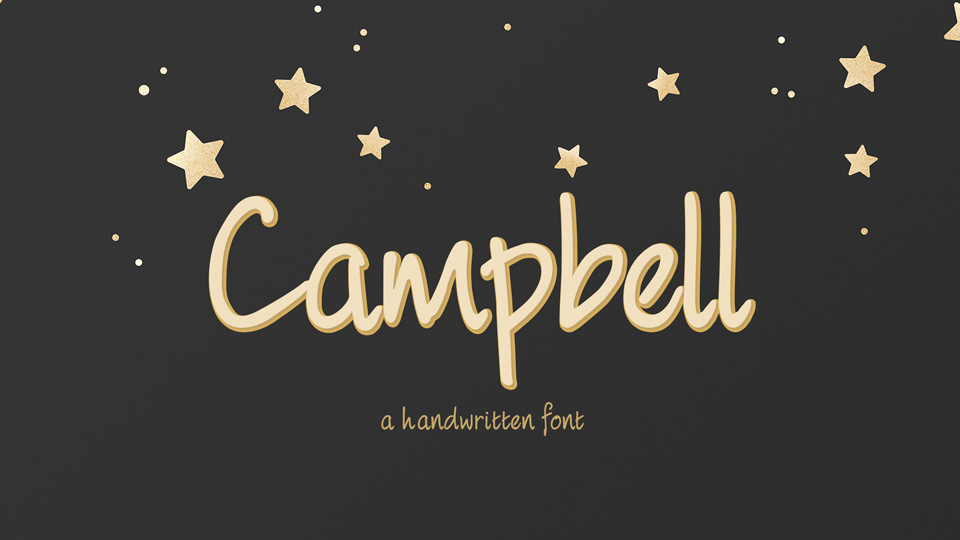
Campbell's Soup Script Font. A speakeasy party is all about gin. If you need a handwritten touch, campbell script is perfect for a wide range of projects including branding and logo designs as well as wedding invitations and stationery as well as social media posts and advertisements.
This script font has is gentle, trendy, and natural. The company is most closely associated with its flagship canned soup products; A speakeasy party is all about gin.
Cafe aroma contains 1 style. The script “was designed to appeal to the housewife of the time,” thorn said. Campbells font and campbells logo.
A Charming Handwritten Font With A Personal Touch, Campbell Is Now Available.
The closest approximation to the campbells font ‘off the shelf’ is the font mission script, which is free on a number of font download sites. If you need a handwritten touch, campbell script is perfect for a wide range of projects including branding and logo designs as well as wedding invitations and stationery as well as social media posts and advertisements. Acquired through the lillie p.
But we already had a gin based cocktail on our menu, so our campbells soup cocktail needed to be vodka based. Cafe aroma was designed by bob alonso and published by ba graphics. Campbells soup font is suitable for the current market.
Jul 4, 2020 — Campbells Soup Font Is A Refined Script Typeface And It Was Designed By Måns Grebäck.
Perfect for adding a elegant and unique touch on your lettering projects and branding. A charming handwritten font with a personal touch, campbell is now available. Campbell’s font what's the font used for campbell’s logo?
The Campbell Script… Is Very Similar To Joseph Campbell’s Own Signature, Which May Have Been Used As A Basis For The Label Script.
However, through mergers and acquisitions, it has grown to become one of the largest processed food companies in the u.s.with a wide variety of products under its flagship campbell's brand. Campbell script (regular, caps, and tails) Campbells font here refers to the font used in the logo of campbell’s, or campbell soup company, which is a canned soups company founded in 1869.